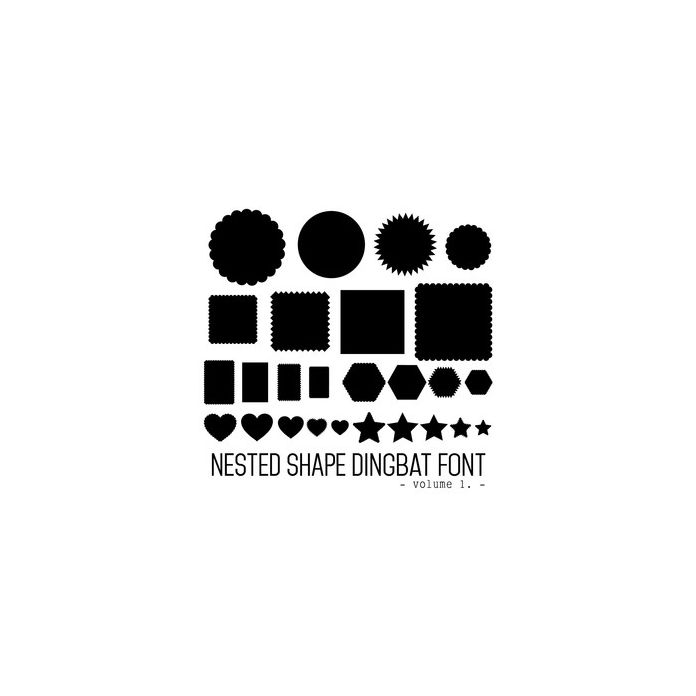
Nested Shape Dingbat Font. Includes 26 nested shapes. For more design ideas, coordinating designs & products and inspiration, please visit my blog http://www.sarahhurleyblog.com